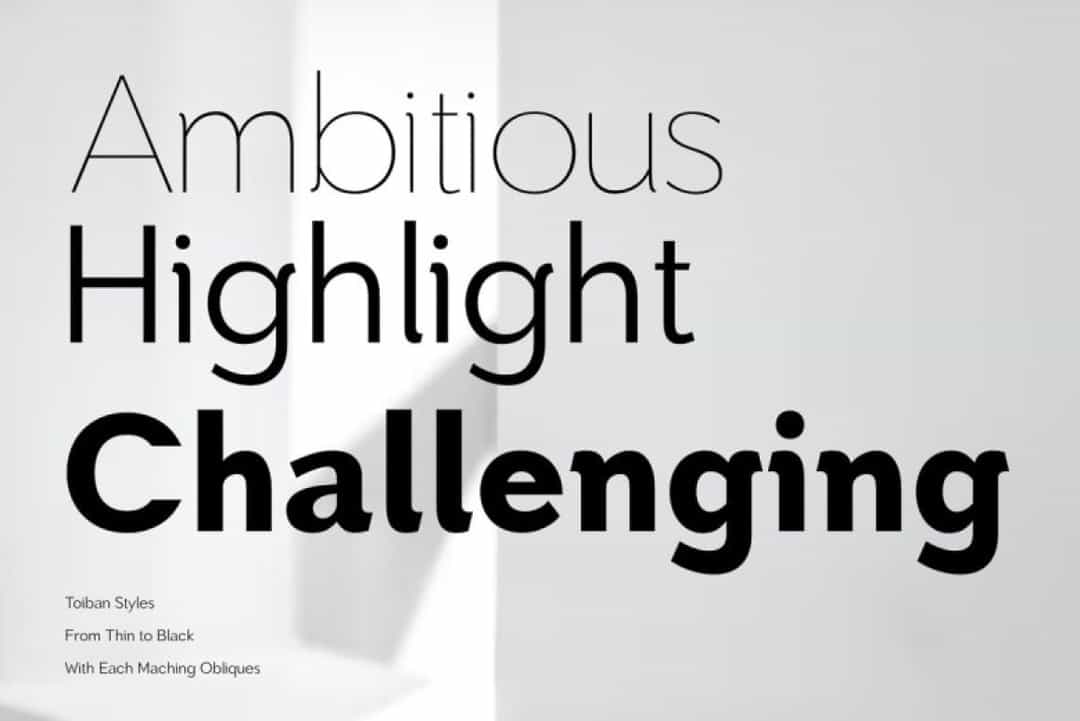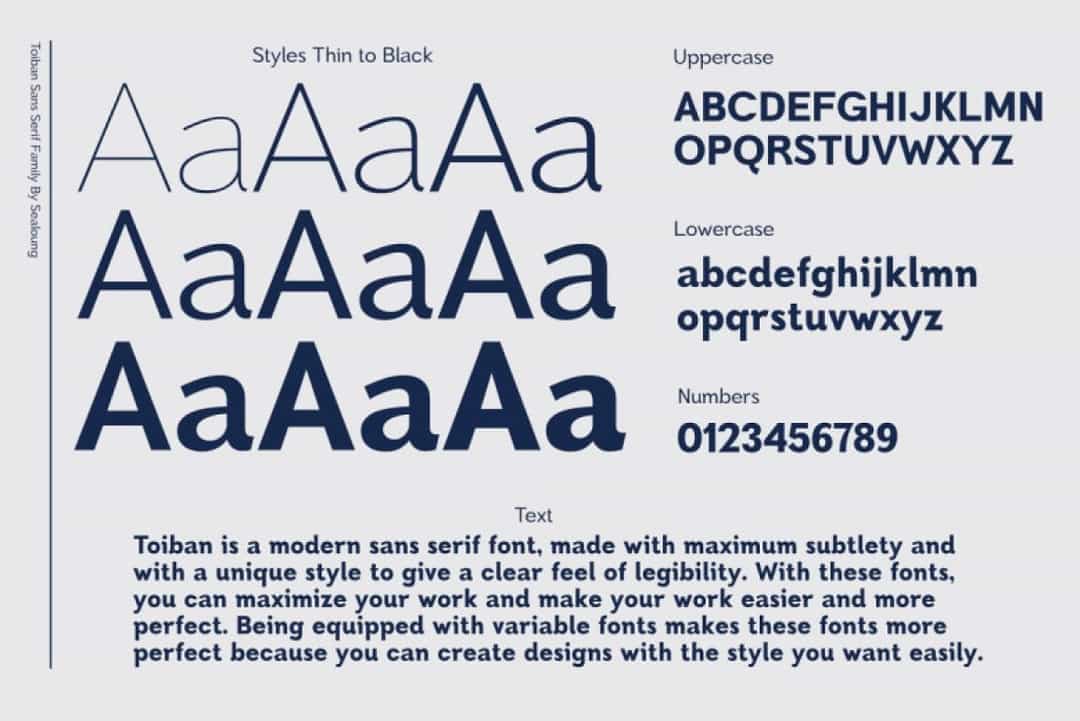
Toiban is an elegant Sans Serif font that was designed in line with Swiss principles of simplicity, clarity and neutrality to meet modern branding and design demands. Each symbol in Toiban was specifically created and designed in this extensive edition to meet today’s design demands.